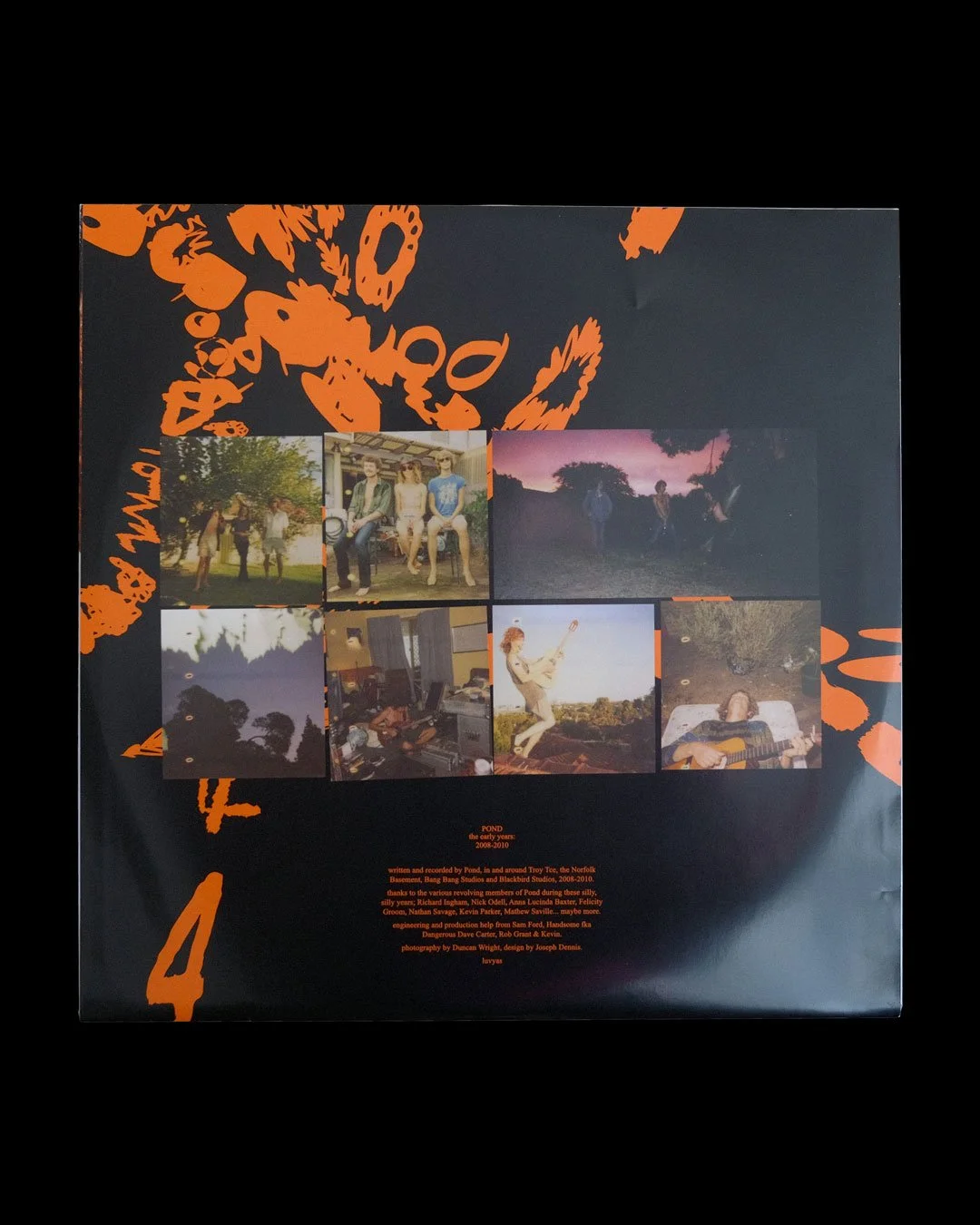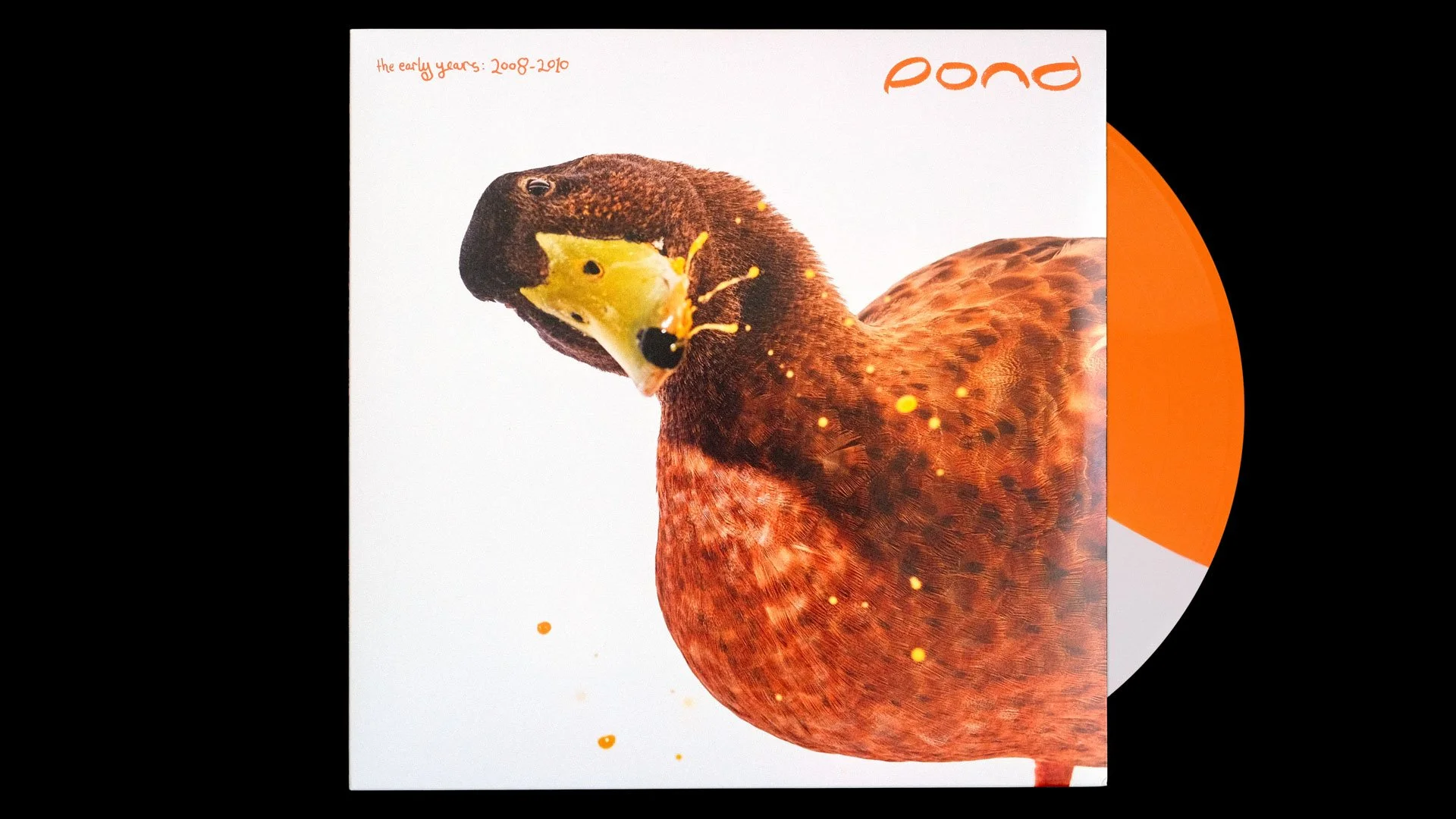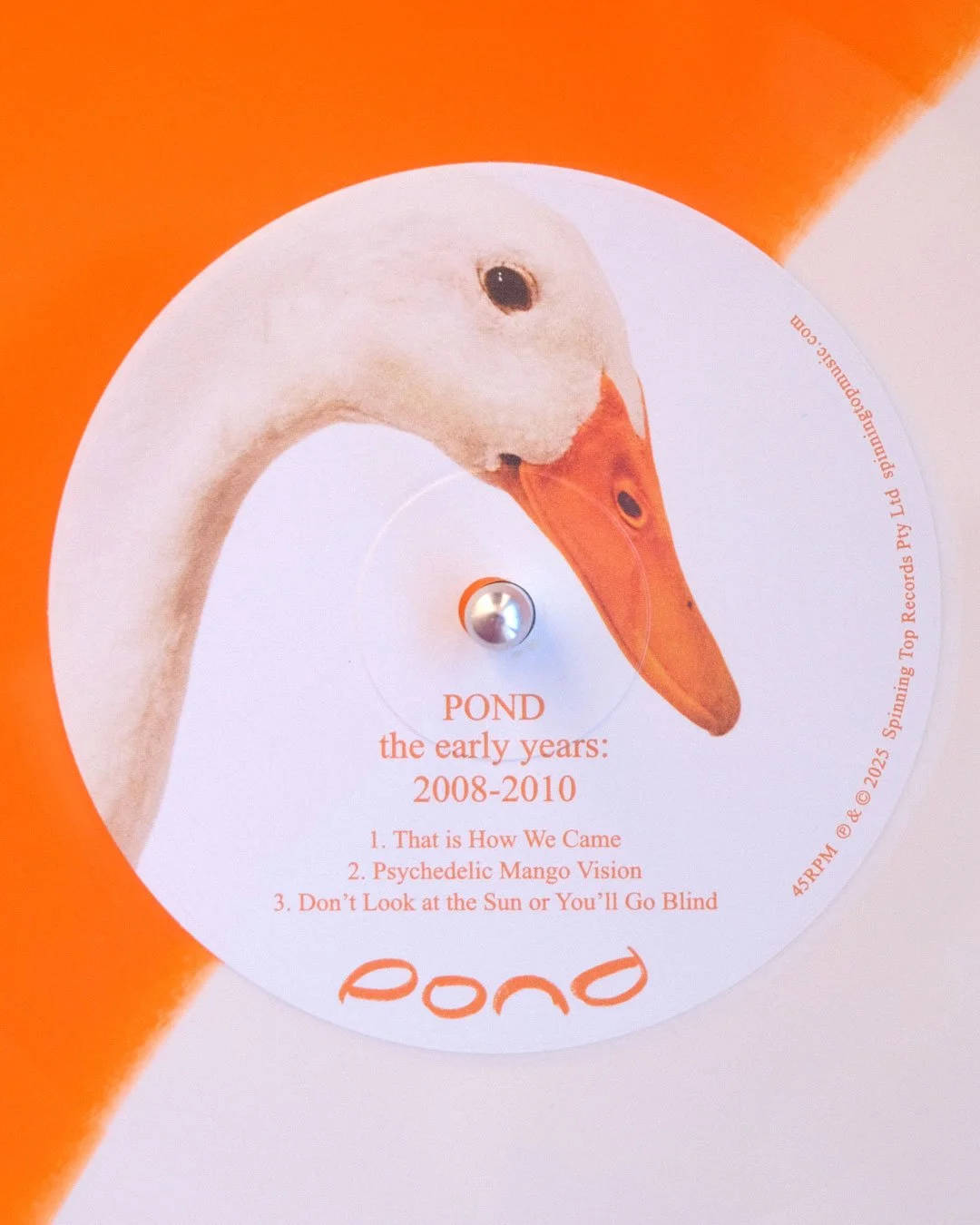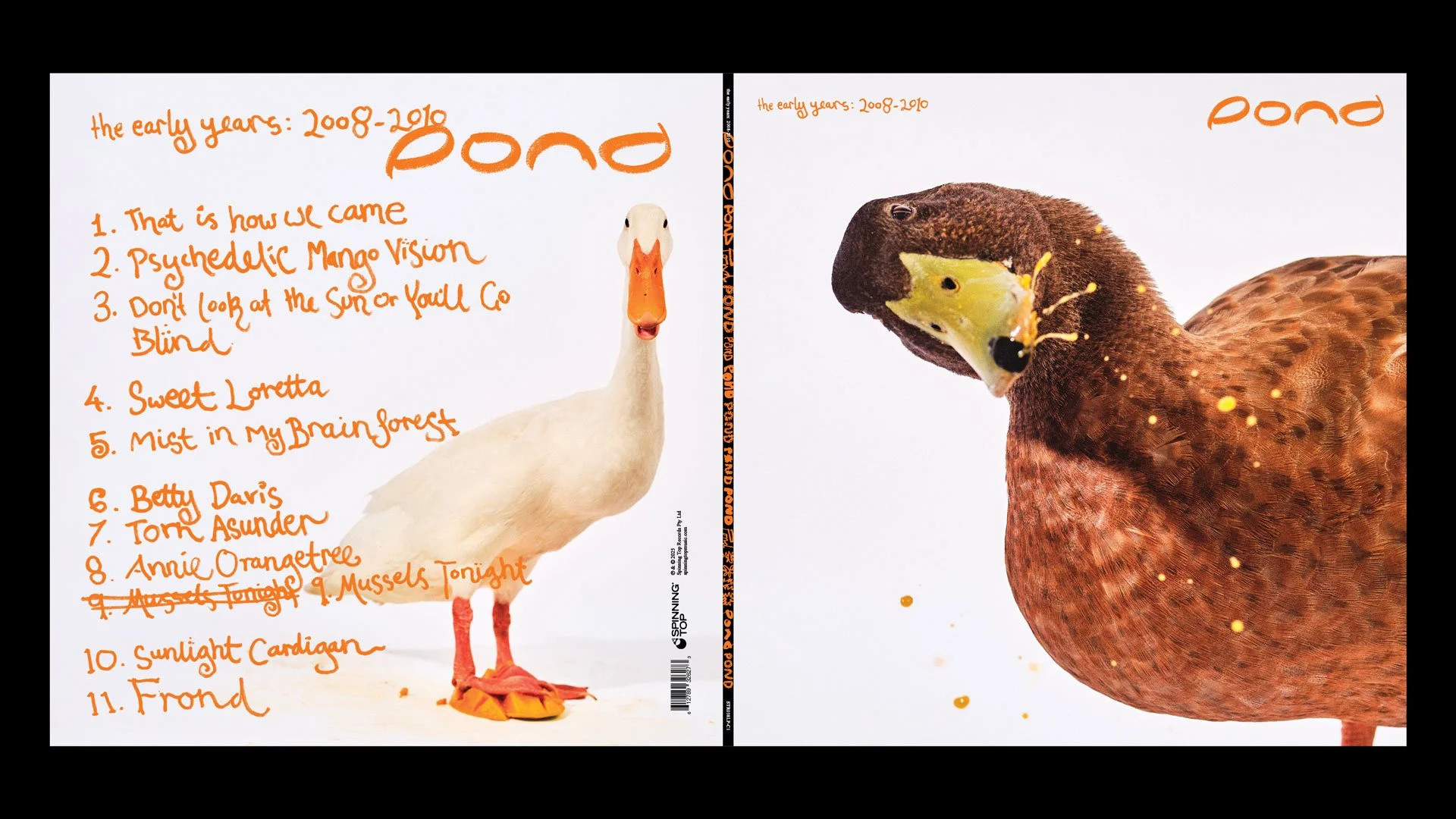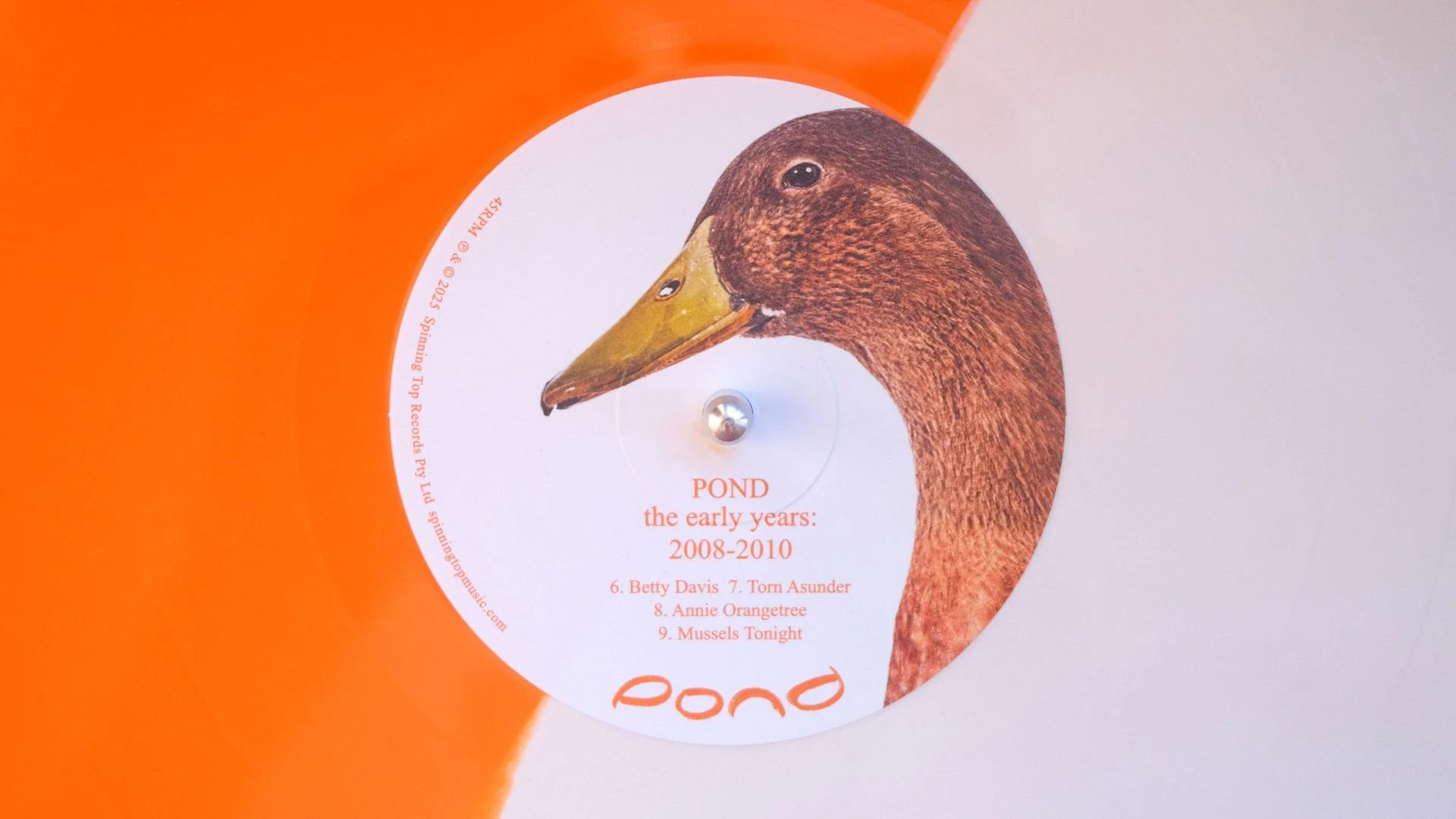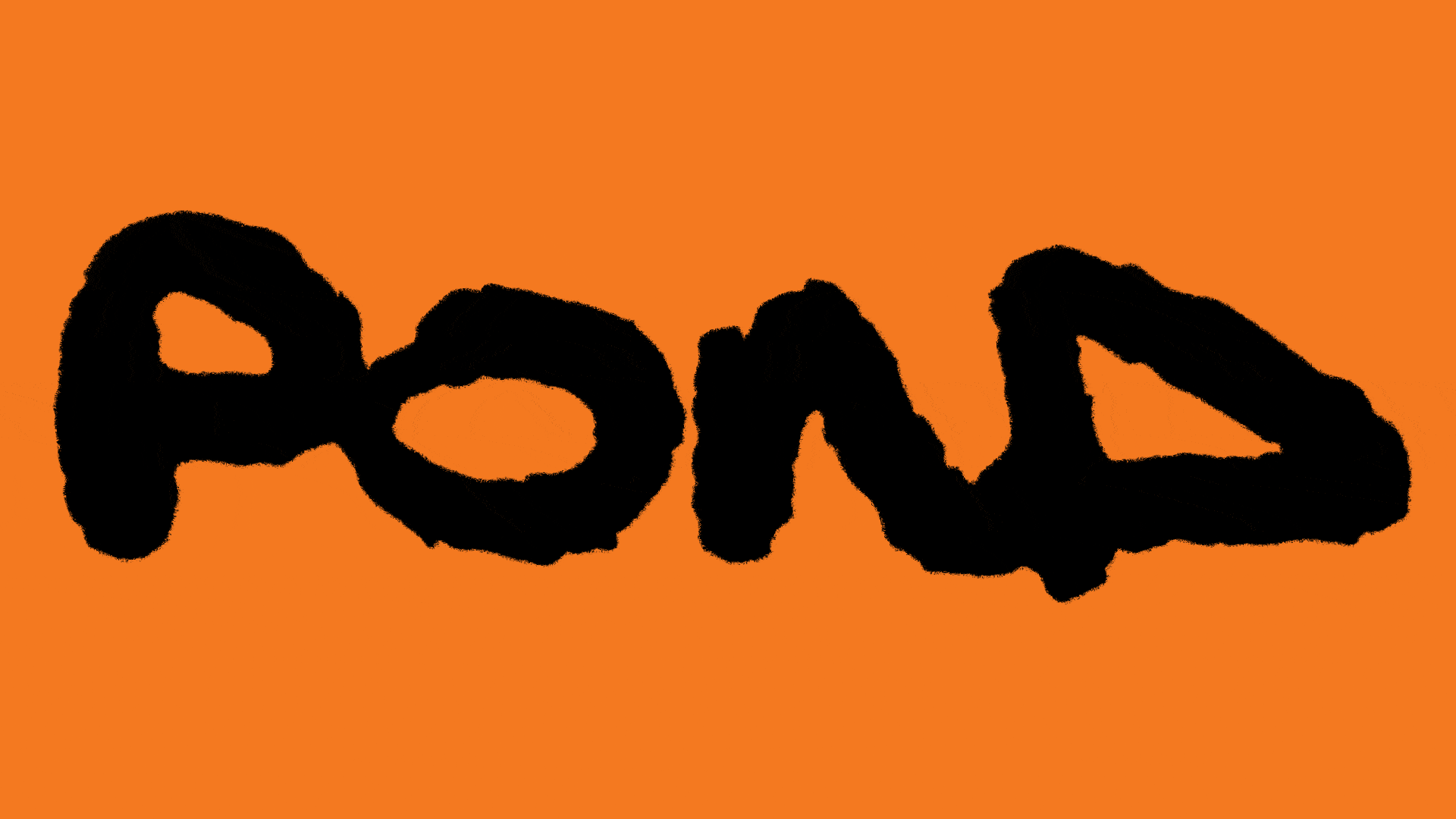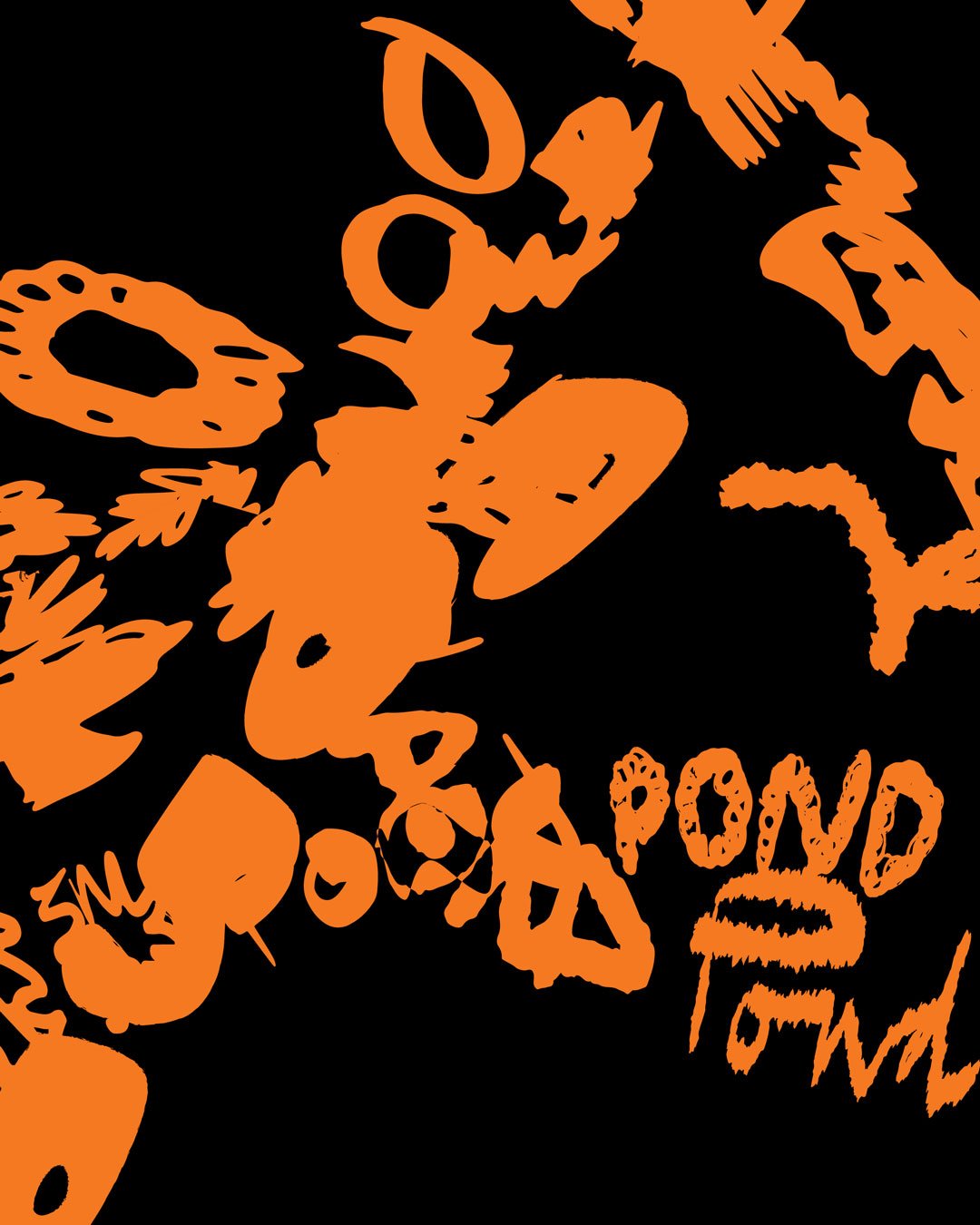
The Early Years 2008-2010
Exploring Pond’s psychedelic mango past in the packaging of their 2025 Record Store Day release.
Released on Record Store Day 12th April, ‘The Early Years 2008-2010’ is a compilation of Pond’s first three recordings, two of which were never pressed to vinyl or even mastered originally - now available on 180g ‘Mango Vision’ vinyl.
Art direction, custom type & motion design: Joseph Dennis
Photography: Duncan Wright
Back cover tracklist type written by Nicholas Allbrook